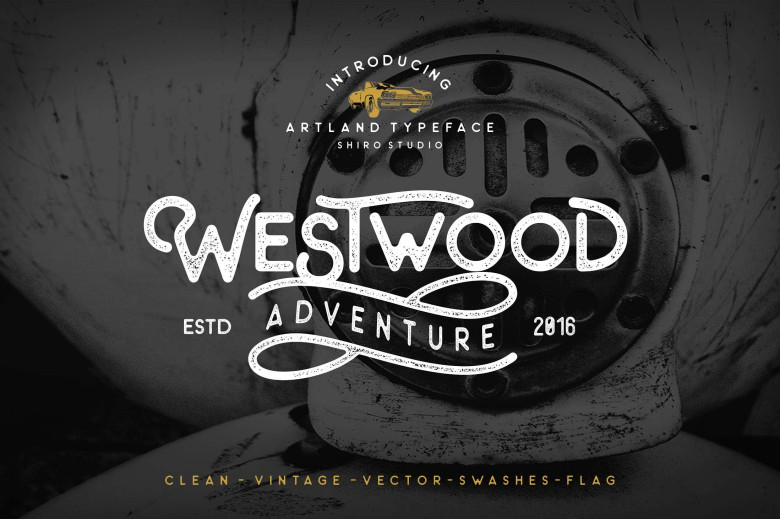
The Artland Typeface
Introducing The Artland Typeface! The Artland designed by Shiro Std, this is a premium font, are sold on creativefabrica, but it was great, it is free today for download. The Artland Typeface is a stylish sans serif font. The font comes with Clean and Vintage . Very cool for branding, poster, logo, and any other artworks. Using artland will be better if we play the lowercase and uppercase alternate and combining it with swashes and vector packs.
The Artland font is a font family that comes with 2 beautiful fonts: Artland Regular & Artland Vintage. In addition you also get a special font with swashes and a wordflag font, packed with unique catchphrases.